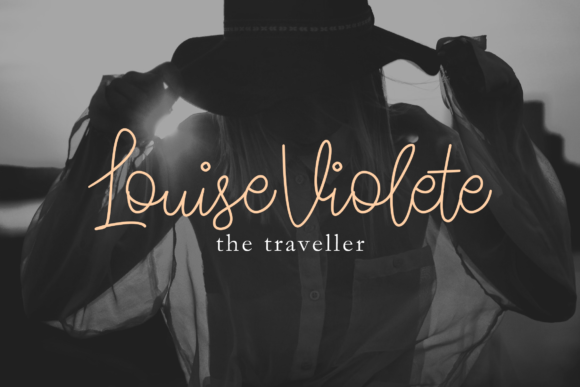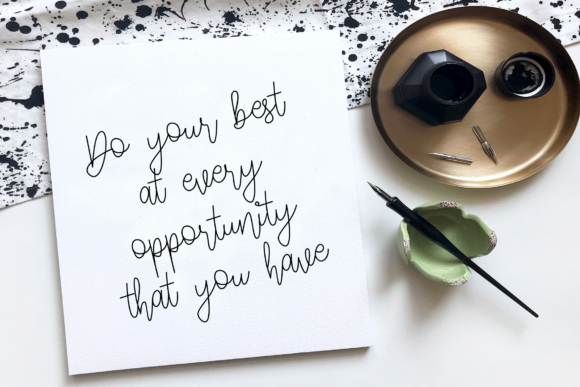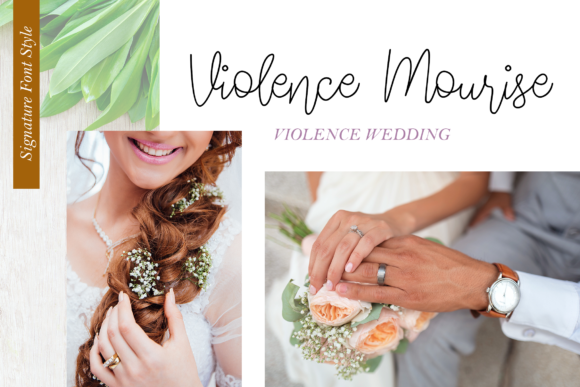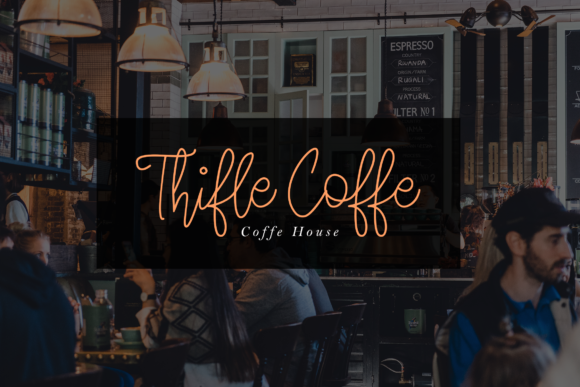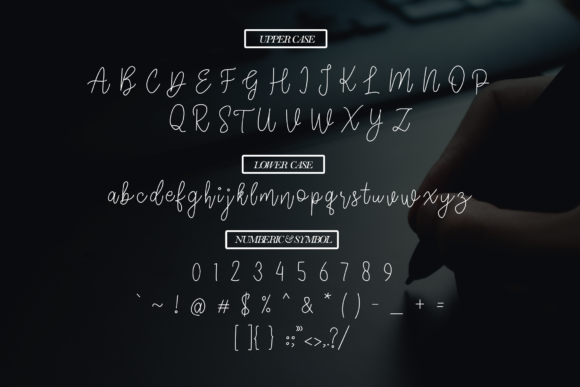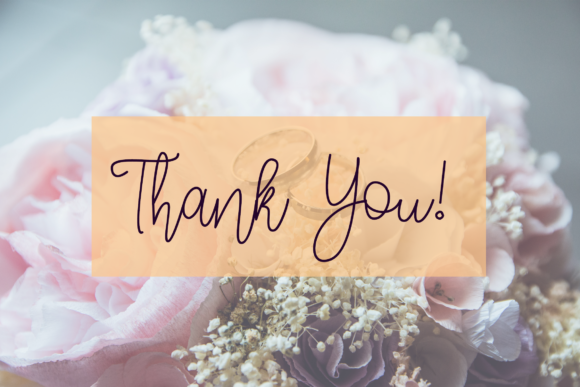
Estonia Park Font
About Estonia Park Font
Estonia Park is a beautiful handwritten font with a stylish vibe. Get inspired by its unique feel, and turn any design project into a stand out!